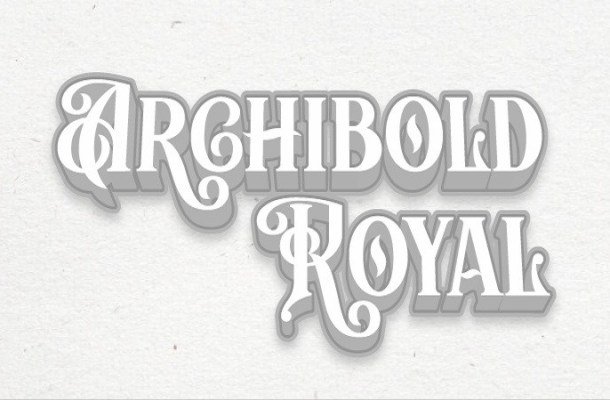
Archibold Royal Display Font
This Archibold Royal Display Font is inspired by Traditional, tribe, ink and Tattoo. You need to unlock the uppercase alternative character for the main course. This font will suitable for your any design needs.